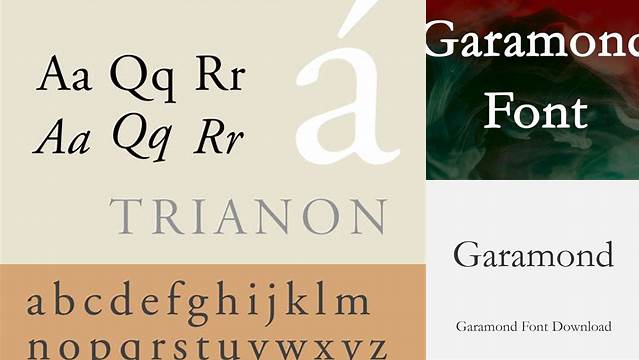
Alright, guys! Let's dive into the world of typography and, specifically, how you can snag a font garamond free download. This classic font is a timeless beauty, used across centuries and still incredibly popular today. Whether you're a designer, writer, or just someone who appreciates good-looking text, getting your hands on Garamond is a fantastic idea. This guide will walk you through everything you need to know, from where to find the font to how to install it on your computer. So, buckle up and prepare to give your documents a touch of elegance!
Exploring the Allure of Garamond: Why Choose This Font?
So, what's the big deal with Garamond, anyway? Why are we even bothering with a font garamond free download? Well, let me tell you! Garamond isn't just another font; it's a piece of history, a work of art, and a symbol of refined design. It's got this incredible ability to make any text look sophisticated and readable. The font was created by Claude Garamond, a French punch-cutter in the 16th century. Its graceful serifs and beautifully balanced letterforms have made it a favorite among designers and readers. This is why many people seek a font garamond free download. Its readability is a major plus. When you're choosing a font, legibility should always be your top priority. Garamond excels in this area, making it an excellent choice for long-form documents like books, articles, and even websites. The spaces between the letters are generous. This creates a comfortable reading experience and reduces eye strain, which is important for anything that will be read for an extended amount of time. Beyond readability, Garamond has a classic and timeless aesthetic. It exudes an air of sophistication that can immediately elevate any design project. The design feels elegant and professional. It makes it a great choice for both print and digital media. It is very versatile. Garamond can be used in a variety of applications, from headlines and body text to logos and branding materials. Its versatility makes it a valuable asset in any designer's toolkit. So, whether you're working on a school project, creating a professional presentation, or designing a website, Garamond can add a touch of class and sophistication to your work. Finding a good font garamond free download is a win-win.
Unveiling the Design Features of Garamond
Let's get a bit technical, shall we? Understanding the design features of Garamond helps you appreciate its beauty and versatility. The font has several distinct characteristics that make it stand out from the crowd, so it is important to look for a font garamond free download. One of the key features is the serifs. Serifs are the small decorative strokes at the ends of letters, and Garamond's serifs are particularly graceful and elegant. They give the font a refined and classic appearance. The strokes are also well-balanced and provide a sense of harmony throughout the design. Another feature is the contrast between thick and thin strokes, which is a hallmark of Garamond. This contrast adds visual interest and helps to define the letterforms. The thick strokes provide a sense of weight and stability, while the thin strokes create a feeling of lightness and elegance. The x-height is also considered in the design. The x-height refers to the height of the lowercase 'x' in a font. Garamond has a relatively large x-height, which makes it easier to read, especially in smaller sizes. This is another reason why many people seek a font garamond free download. The letterforms themselves are also noteworthy. The lowercase letters have a distinct shape, which are elegant and easy to distinguish. The font has an italic style, which is particularly beautiful and flowing. Overall, the design features of Garamond are the result of careful craftsmanship and attention to detail. The beauty of Garamond lies in its elegance, readability, and versatility.